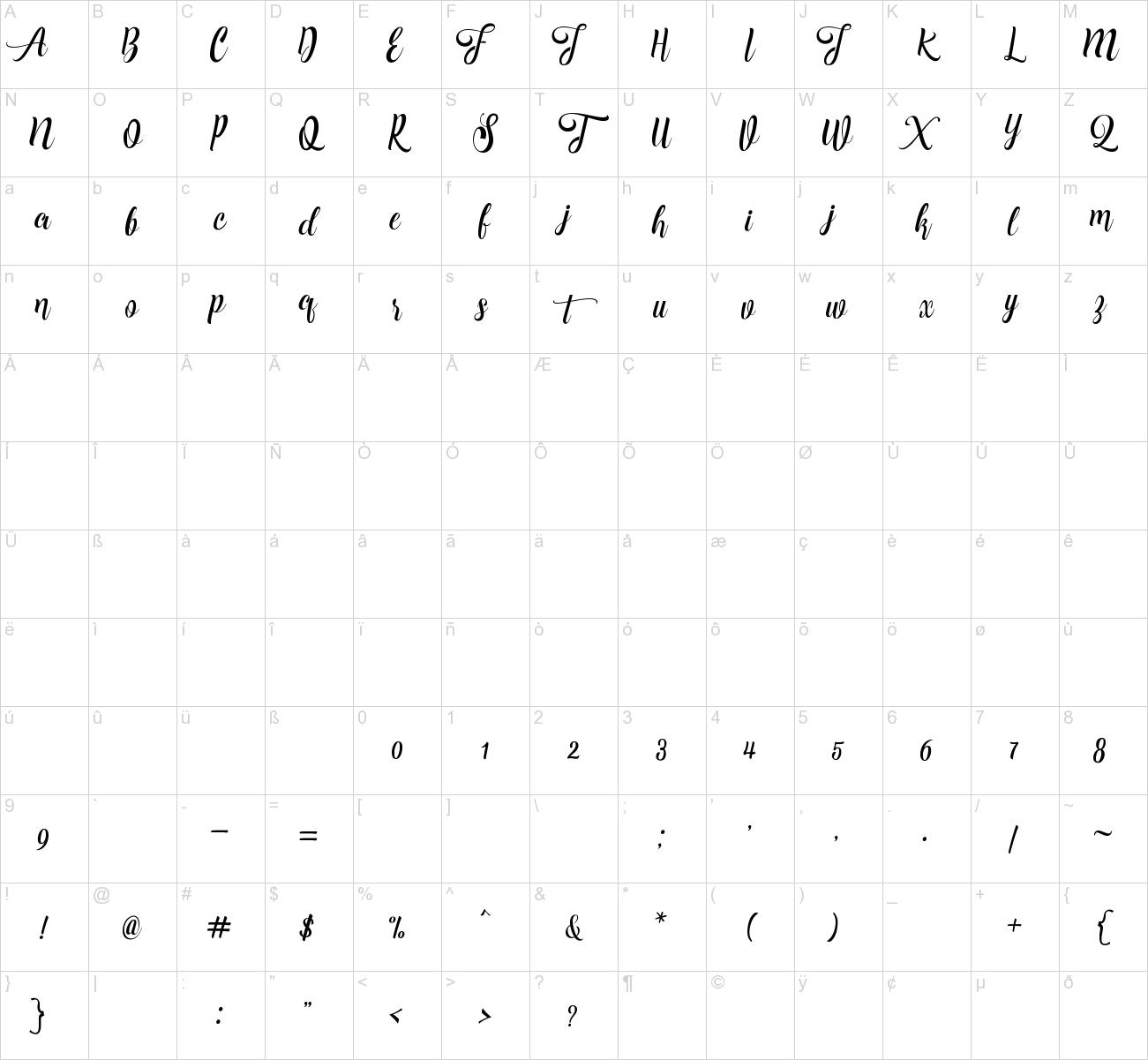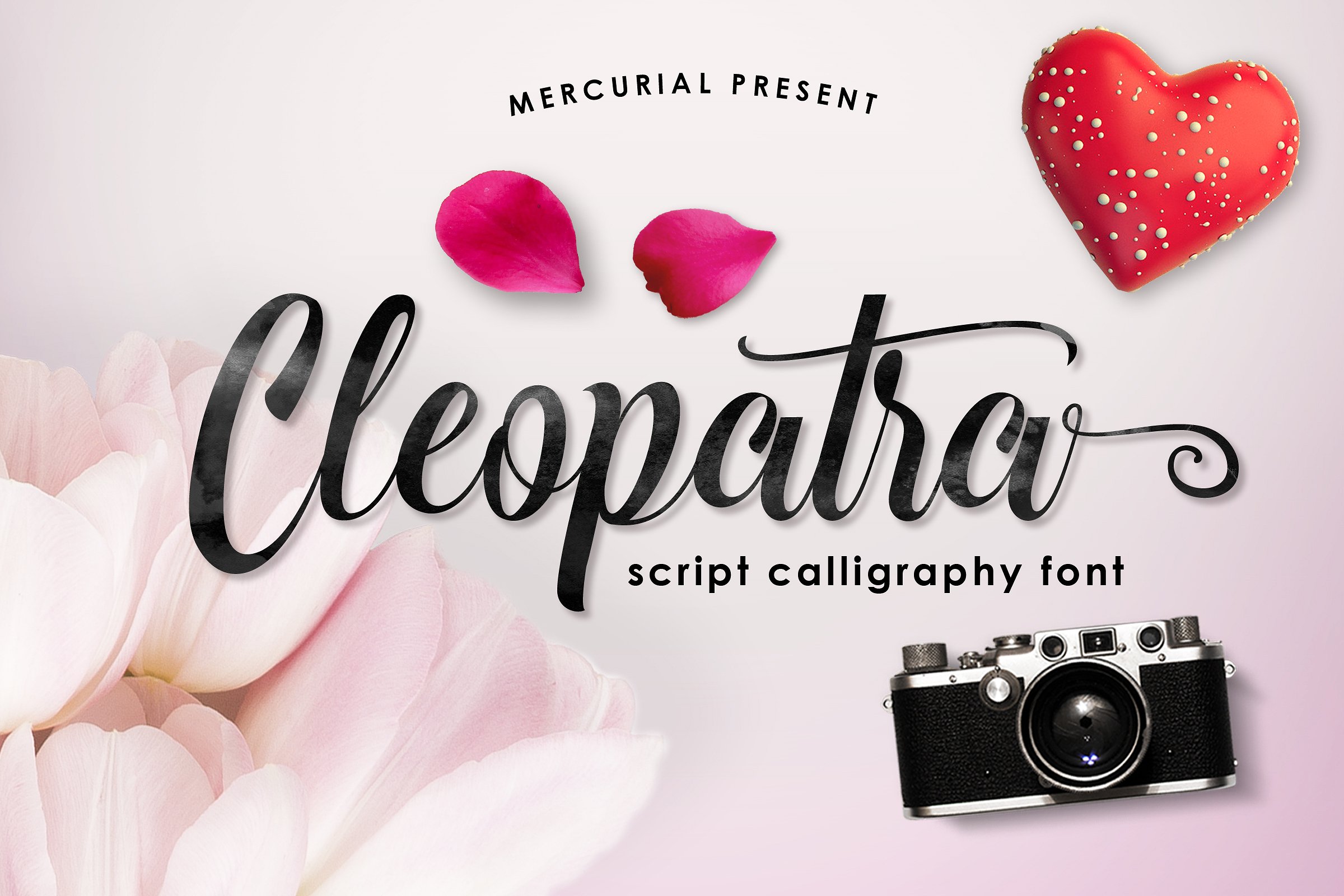
Cleopatra Script Font
Introducing the Mercurial Cleopatra, style fresh and modern calligraphy script new. typeface attract interesting and so beautiful!